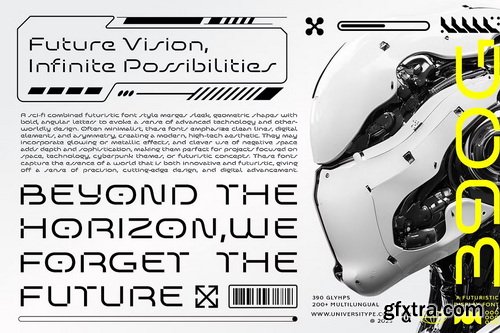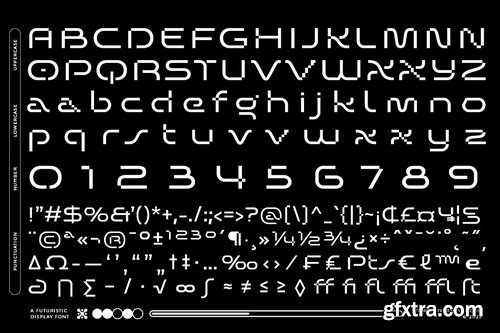
UT Defghio Nixav is a cutting-edge futuristic display font designed to elevate projects with its bold, angular geometry and sleek, minimalist aesthetic. Merging advanced technology with otherworldly design, this font captures the essence of innovation, precision, and digital advancement. Perfect for visionary concepts, it blends glowing metallic effects, asymmetry, and clever negative space to create depth and sophistication. Ideal for tech startups, sci-fi enthusiasts, game developers, digital artists, and modern brands seeking to convey innovation. Perfect for projects in space exploration, cyberpunk themes, AI-driven interfaces, and futuristic concepts.